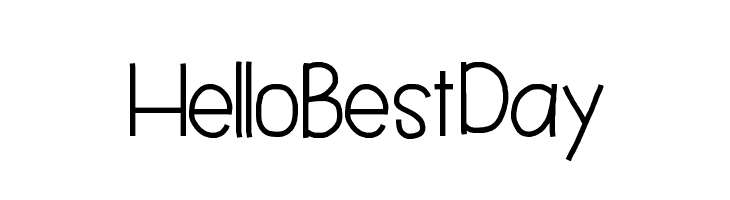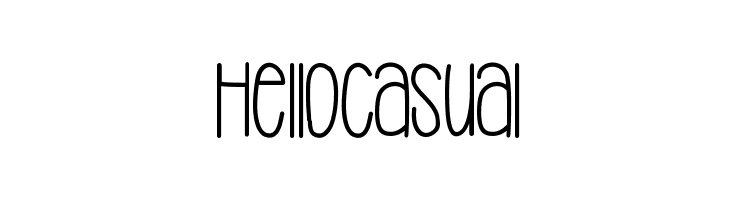
Playful and modern handwritten font.
A playful, casual handwritten font with rounded, consistent strokes.
A playful, handwritten-style font with a casual and friendly appearance.
A playful, casual handwritten font with smooth, rounded strokes.
A playful, hand-drawn font with tall, narrow characters and a whimsical style.
A playful, casual handwritten font with smooth, flowing lines.
A playful, casual handwritten font with tall, narrow letterforms.
A playful, handwritten font with a casual and whimsical style.